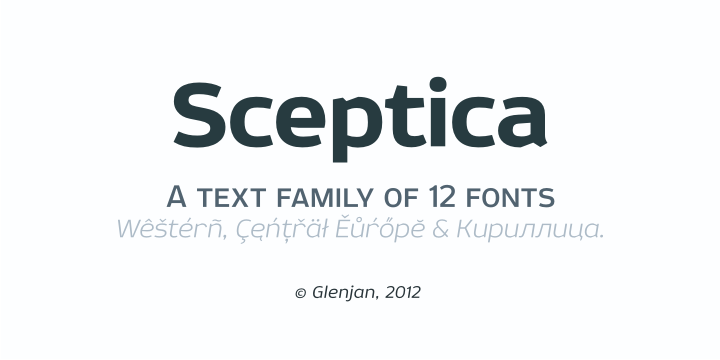
Sceptica Font is perfect for critical thinking publications, analytical branding, skeptical journalism materials, scientific research documents, investigative reporting graphics, rational discourse signage, evidence-based campaigns, and questioning display typography.
What makes Sceptica Font exciting is its analytical skeptical character that embodies critical thinking and rational inquiry through sharp letterforms and questioning appeal. This intelligent typeface features analytical construction, critical details, and skeptical personality that captures the essence of rational thought and scientific skepticism, making it ideal for projects seeking to communicate intellectual rigor, critical analysis, and evidence-based reasoning with authentic skeptical appeal and analytical sophistication.
The Sceptica Font family includes Light, Regular, Medium, and Bold weights, each maintaining the characteristic critical thinking and skeptical appeal that define this distinctive typeface's analytical personality and rational sophistication.
Sceptica Font Free Download offers designers access to a typeface that perfectly captures the essence of critical thinking and rational skepticism. This analytical font brings authentic skeptical aesthetics to contemporary projects, making it essential for research institutions, investigative journalism organizations, and critical thinking brands targeting audiences who value evidence-based reasoning and scientific skepticism. The font's analytical construction and critical details ensure immediate recognition of intellectual rigor while its distinctive character creates thoughtful connections among individuals seeking rational discourse and evidence-based conclusions. Whether designing scientific research publications, investigative journalism materials, or critical thinking educational campaigns, this font delivers the skeptical authenticity and analytical sophistication that rational audiences expect. Its critical foundation and skeptical symbolism make it indispensable for projects celebrating scientific method, rational inquiry, and the importance of evidence-based thinking, ensuring communications resonate with audiences who value the intellectual honesty, critical analysis, and rational skepticism that define authentic scientific discourse and evidence-based communication across diverse academic and investigative applications.